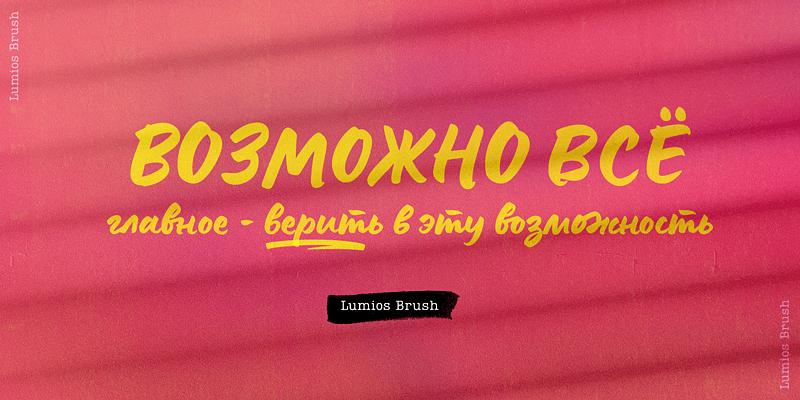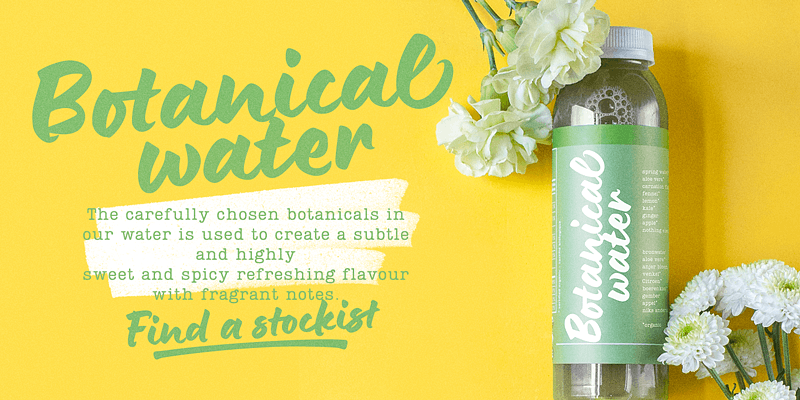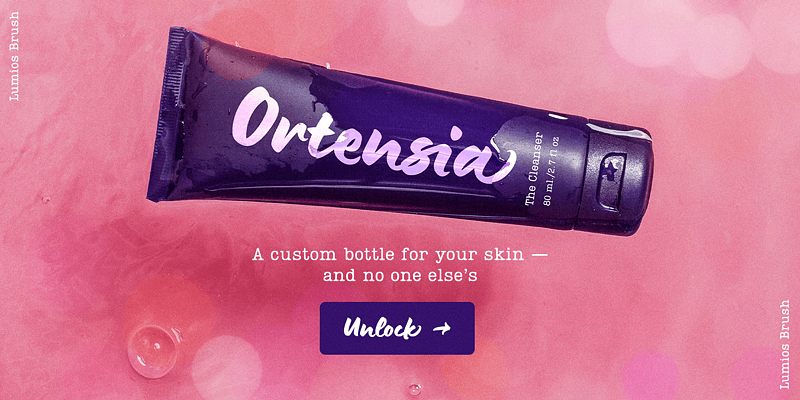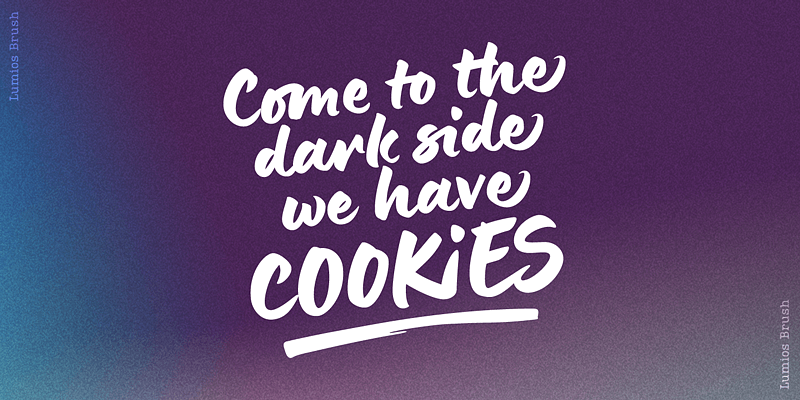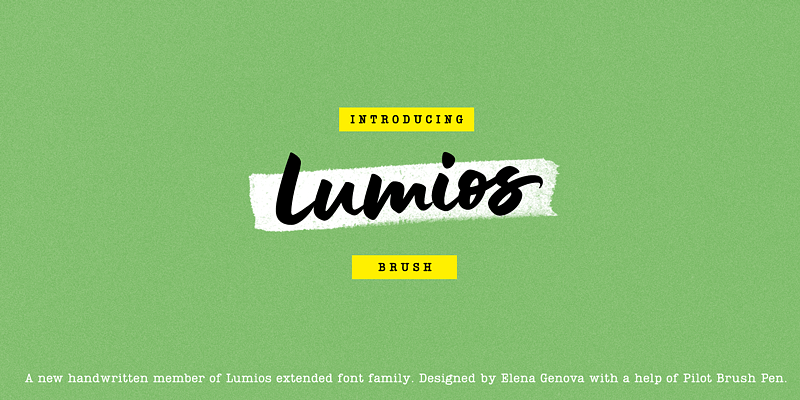
My Creative Land
My Creative Land is home to the gorgeously handcrafted typefaces of Elena Genova. With an unwavering dedication to the art of letterforms, the faces transcend the ordinary and convey emotion, depth, and uniqueness in design. Each font family is carefully handcrafted and often draws direct inspiration from the beauty found in calligraphy and lettering. Discerning designers will know that My Creative Land has fonts ready to infuse a certain je ne sais quoi, amplifying their ideas above the rest.
My Creative Land is a member of The Type Founders collection.